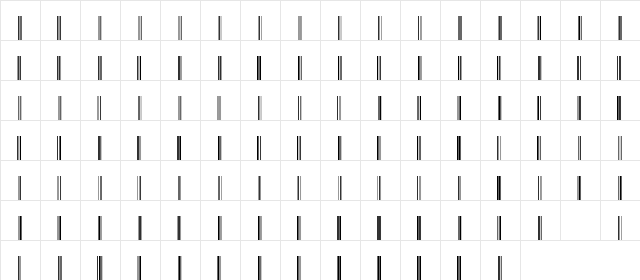
Code128 Regular
| Foundry | Azalea Software, Inc. |
| Designer | Jerry Whiting |
Design Context for Code128 Typeface
Code128 uses fixed-width spacing throughout, giving it the structured, systematic character associated with coding environments and technical documentation.
A natural fit for code editors, technical documentation, developer-focused branding, and terminal-inspired UI.